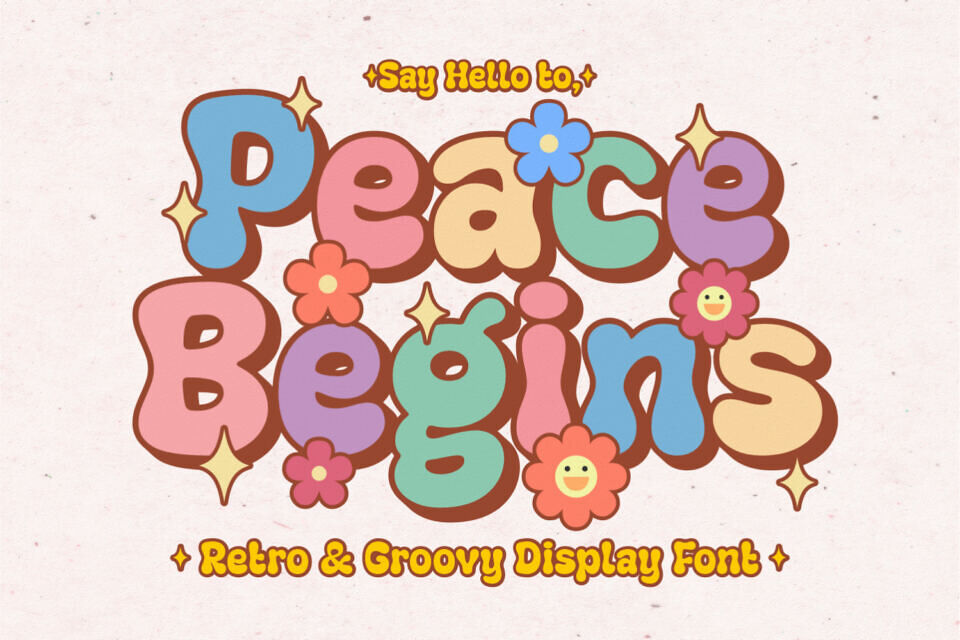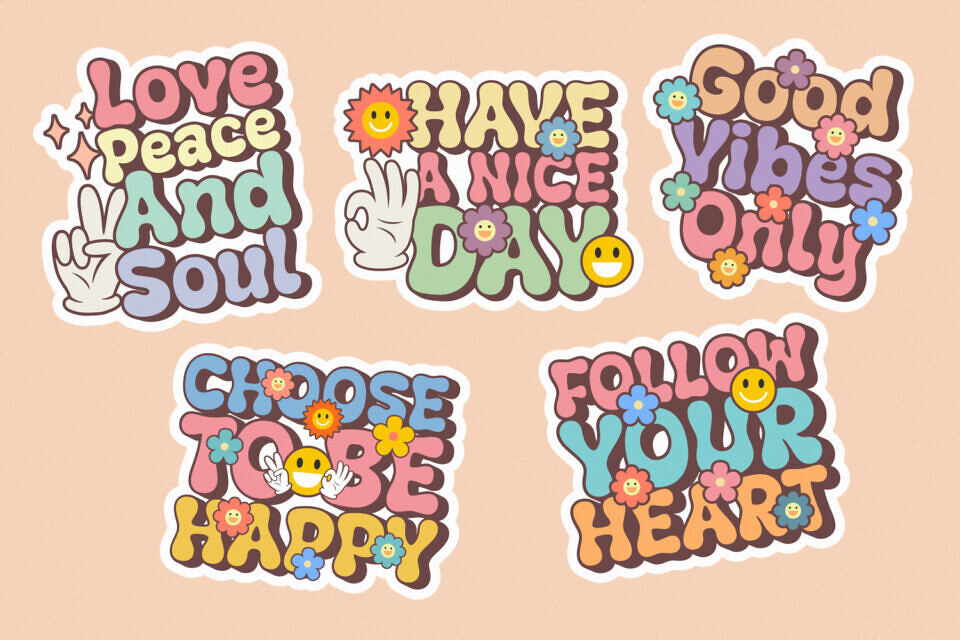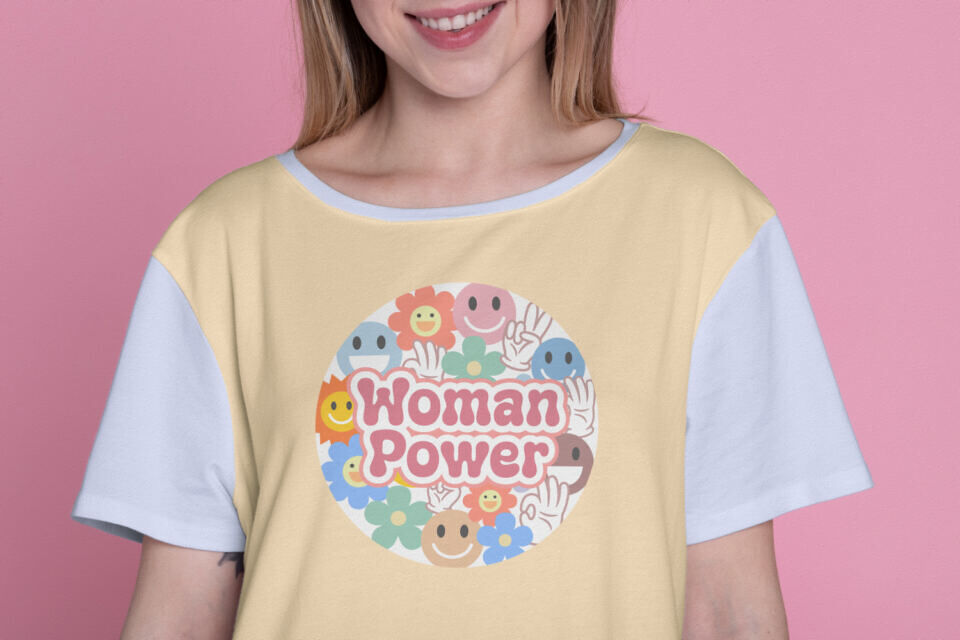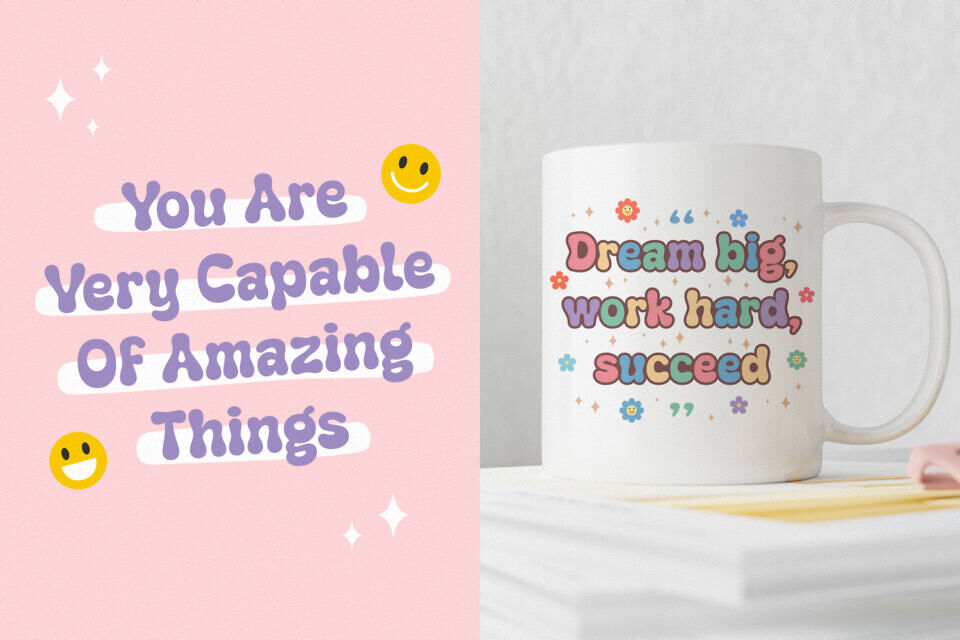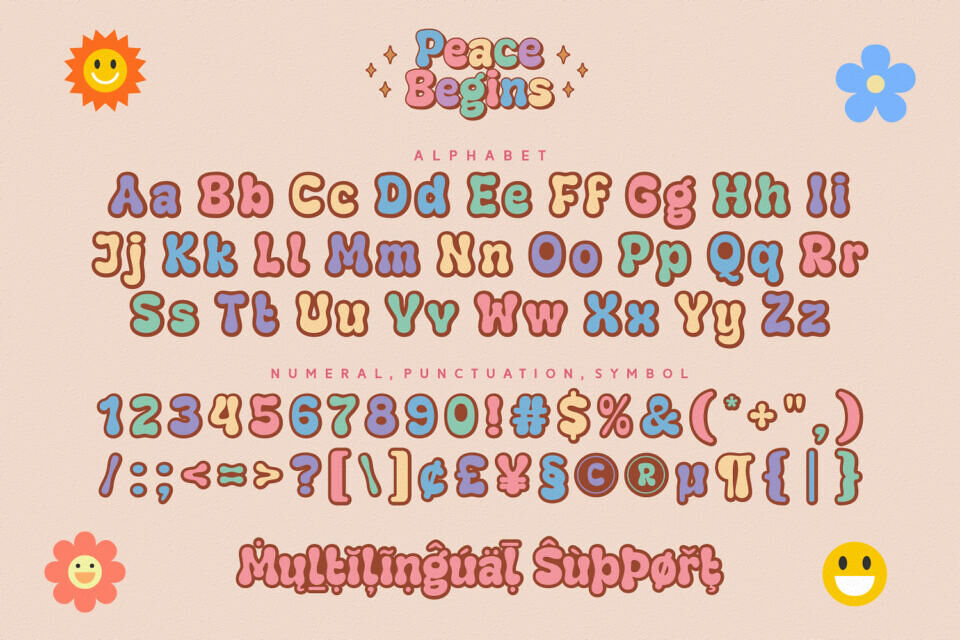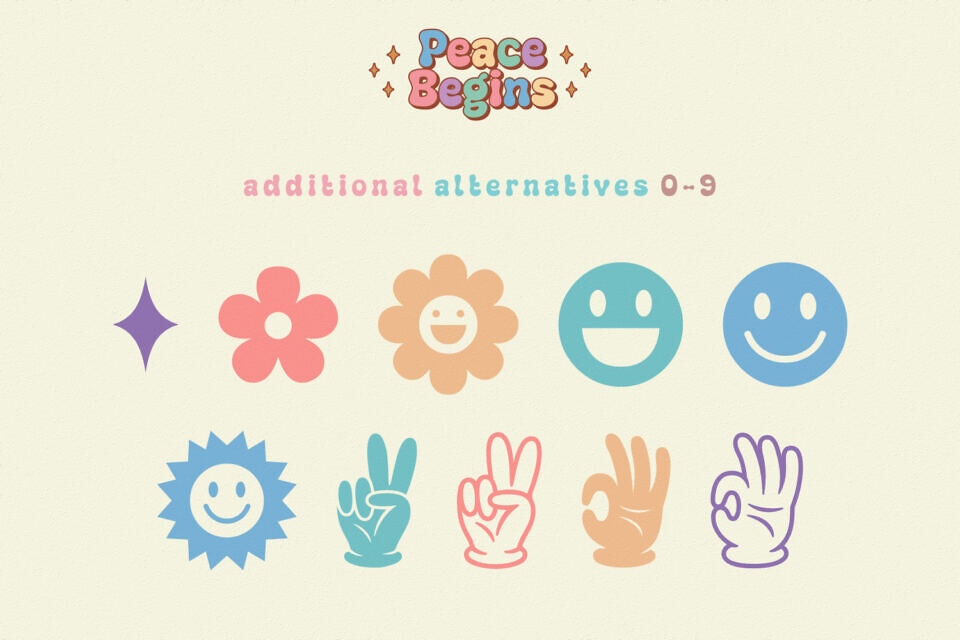
Peace Begins Font
Peace Begins font is a groovy blast from the past, channeling the vibrant energy of the retro era. With its funky curves and psychedelic vibes, this display typeface brings a touch of nostalgia and free-spiritedness to your designs.
Whether you’re creating posters, album covers, or social media graphics, Peace Begins adds a dash of retro coolness that’ll make your creations stand out.